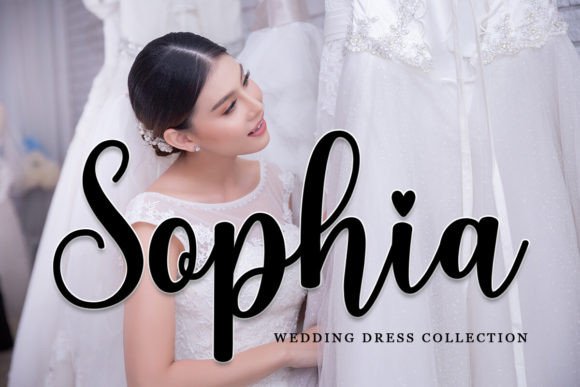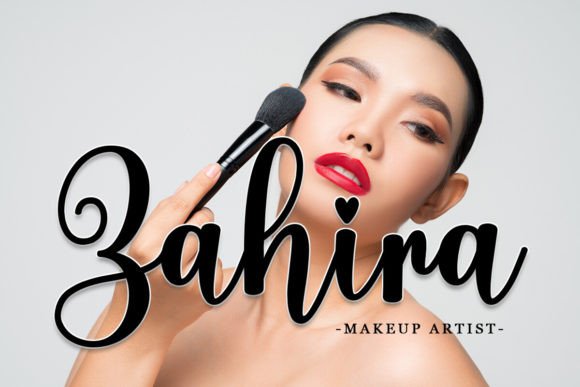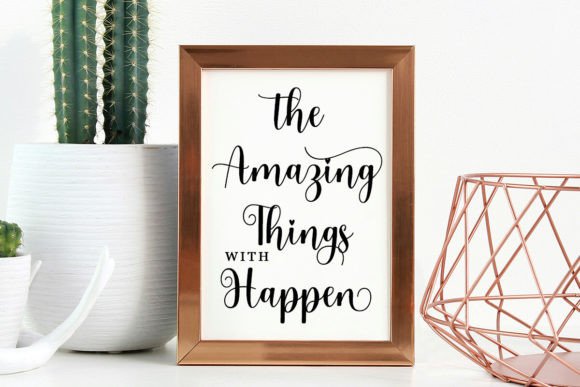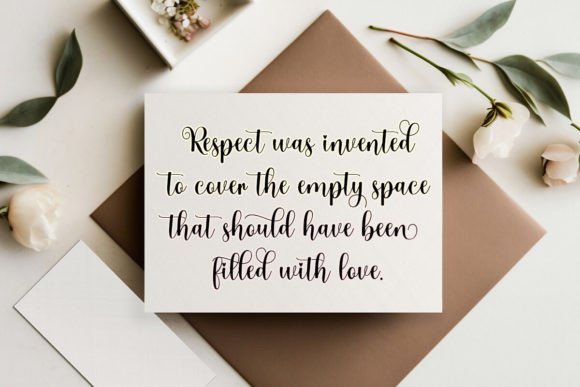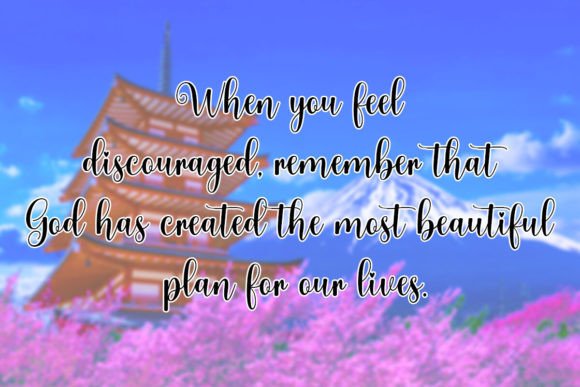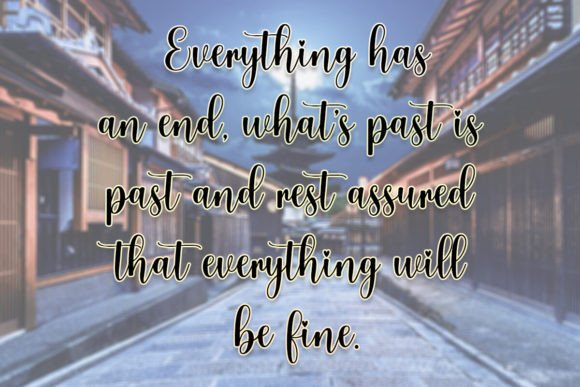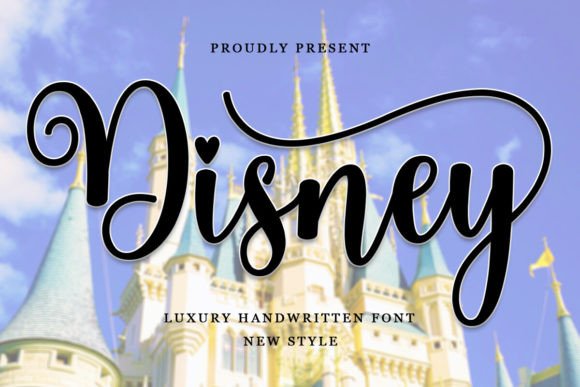
Discover the Magic of Disney Font: Elevate Your Designs with Elegance and Sophistication
Are you a designer, crafter, or creative enthusiast looking for a font that embodies the essence of elegance and sophistication? Look no further than the Disney Font, a stunning handwritten typeface that is sure to captivate your audience and elevate your projects to new heights. In this article, we’ll delve into the world of Disney Font, exploring its unique features, and what makes it an ideal choice for designers and crafters alike.
The Essence of Disney Font: Elegance and Flow
Disney Font is an exquisite handwritten font that exudes a sense of refinement and luxury. Its elegant and flowing lines are reminiscent of traditional calligraphy, yet it maintains a contemporary and fresh feel that is perfect for modern designs. The font’s varied baselines, smooth lines, and beautiful glyphs work in harmony to create a visually stunning effect that is sure to leave a lasting impression.
Key Features of Disney Font
So, what sets Disney Font apart from other fonts? Here are some of its key features:
- Varied Baselines: Disney Font features varied baselines that add a touch of elegance and sophistication to your designs.
- Smooth Lines: The font’s smooth lines create a beautiful, fluid effect that is perfect for titles, headings, and body text.
- Beautiful Glyphs: Disney Font comes with a range of beautiful glyphs, including stunning alternates that allow you to add a personal touch to your designs.
- Classy Calligraphic Influence: The font’s calligraphic influence gives it a sense of tradition and heritage, while its contemporary feel keeps it fresh and modern.
Why Choose Disney Font?
With so many fonts available, why choose Disney Font? Here are just a few reasons why designers and crafters love this font:
- Versatility: Disney Font is incredibly versatile, making it perfect for a wide range of projects, from branding and advertising to packaging and digital media.
- Elegance: The font’s elegant lines and refined feel make it ideal for designs that require a touch of sophistication and luxury.
- Easy to Read: Disney Font is clear and easy to read, making it perfect for body text, titles, and headings.
- Unique: With its stunning alternates and beautiful glyphs, Disney Font is sure to make your designs stand out from the crowd.
Using Disney Font in Your Designs
So, how can you use Disney Font in your designs? Here are a few ideas to get you started:
- Branding and Advertising: Use Disney Font to create stunning logos, business cards, and marketing materials that exude elegance and sophistication.
- Packaging: Add a touch of luxury to your packaging designs with Disney Font, perfect for high-end products and premium brands.
- Digital Media: Use Disney Font to create engaging and visually stunning digital media, including social media graphics, blog posts, and website headers.
- Crafting: Disney Font is also perfect for crafters, including papercrafters, scrapbookers, and journalers, who want to add a touch of elegance to their projects.
In conclusion, Disney Font is a stunning handwritten font that is sure to captivate your audience and elevate your designs to new heights. With its elegant lines, refined feel, and beautiful glyphs, it’s the perfect choice for designers and crafters who want to add a touch of sophistication and luxury to their projects. So why wait? Fall in love with Disney Font and take your designs to the highest level!